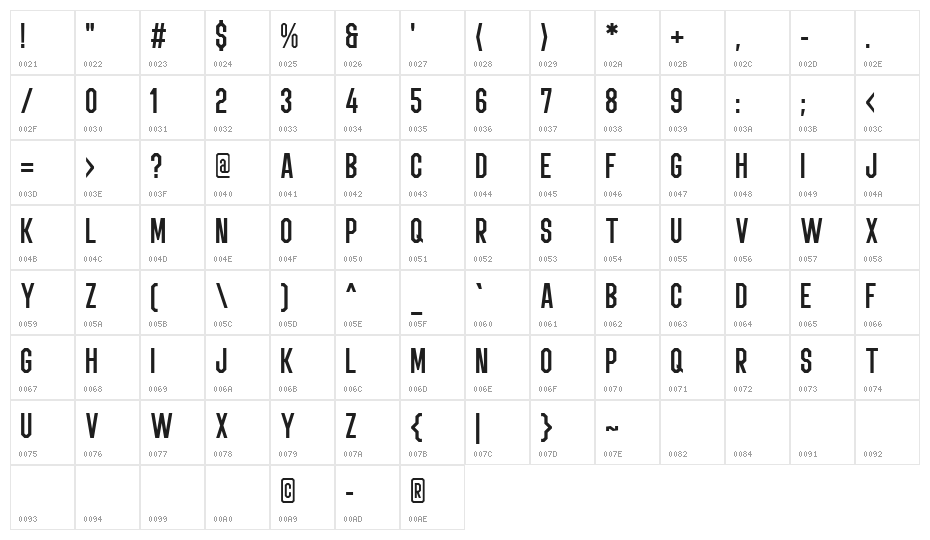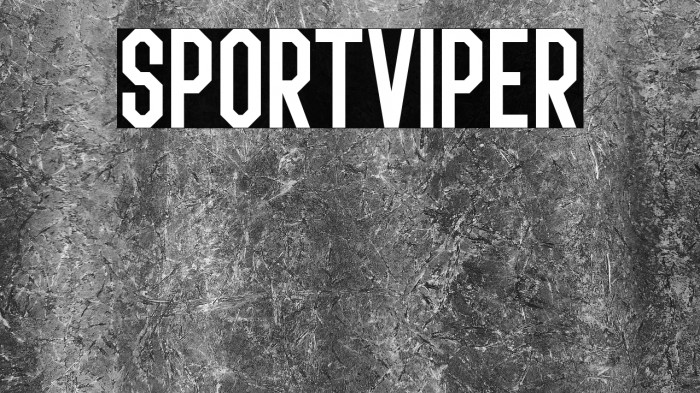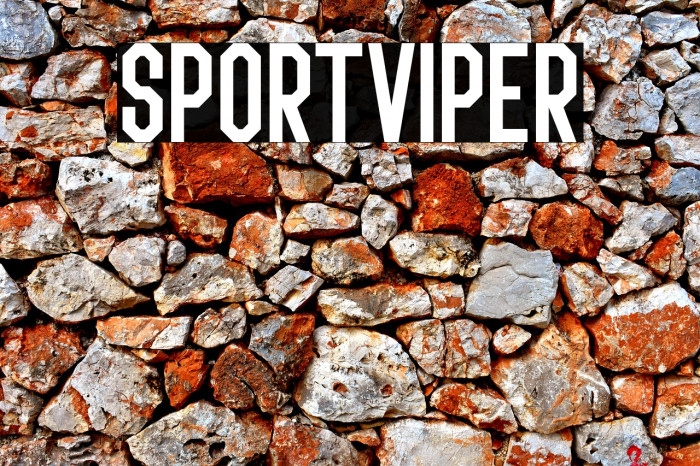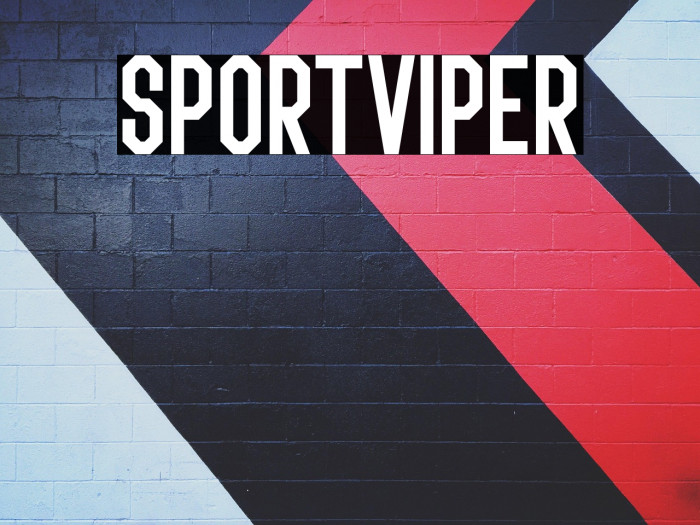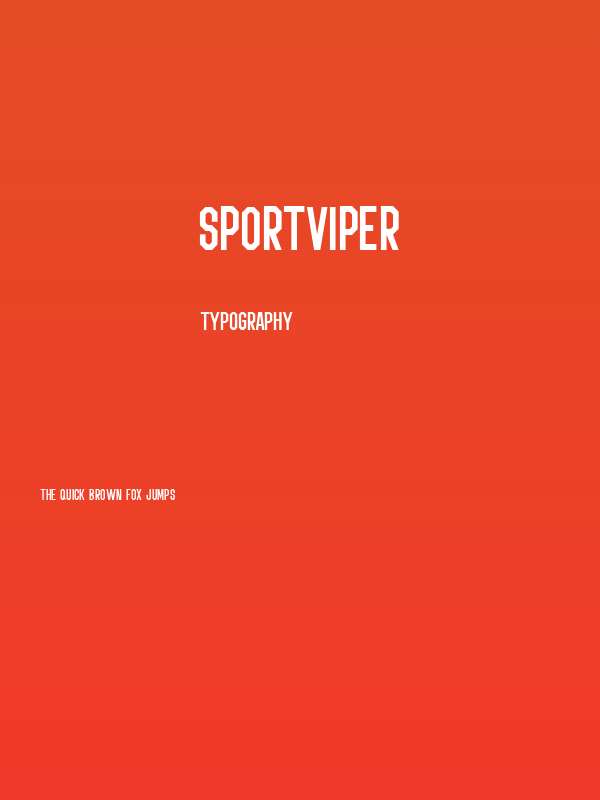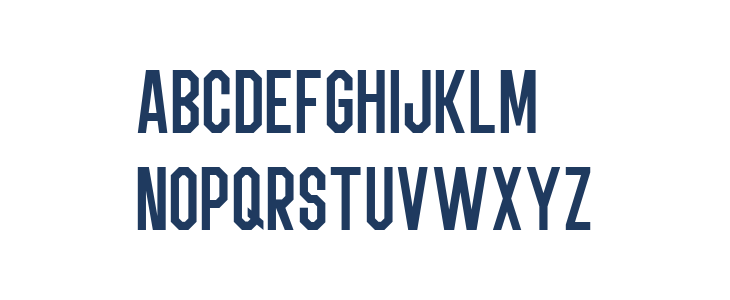
SPORTVIPER Font
SPORTVIPER Description
This font features a bold and impactful design with a strong geometric structure. The uppercase letters are tall and narrow, giving a sense of height and power. The lowercase letters maintain the same boldness, ensuring consistency across text. Numbers are equally bold, making them stand out clearly. Special characters are designed to match the overall aesthetic, with sharp angles and clean lines. The font's style is modern and assertive, making it suitable for attention-grabbing headlines and titles. Its uniform stroke width and lack of serifs contribute to a clean and contemporary appearance, ideal for sports branding or dynamic visual identities.
| Proposed Projects | Ideal for sports branding, dynamic logos, headlines, and posters. |